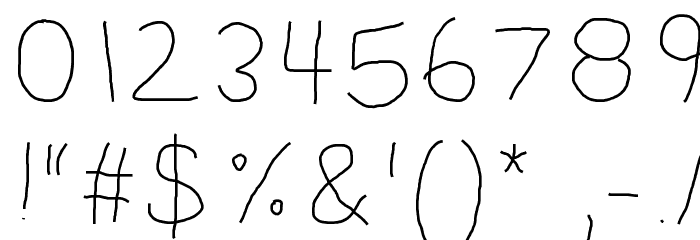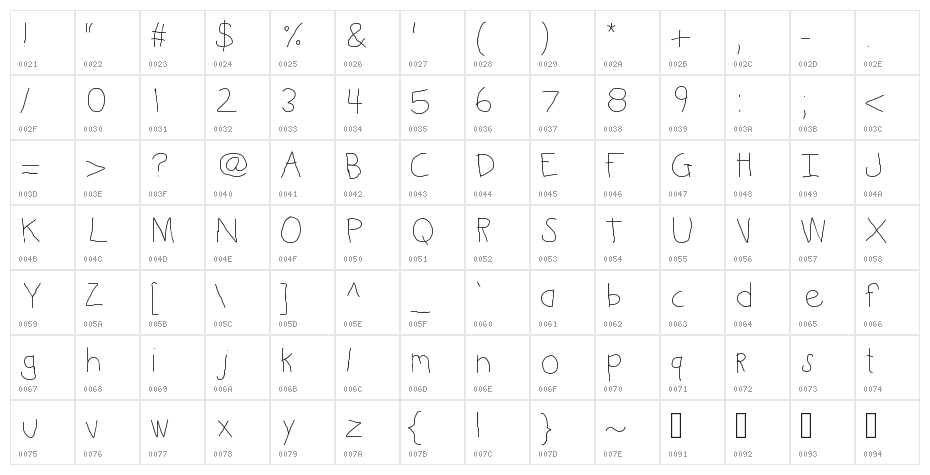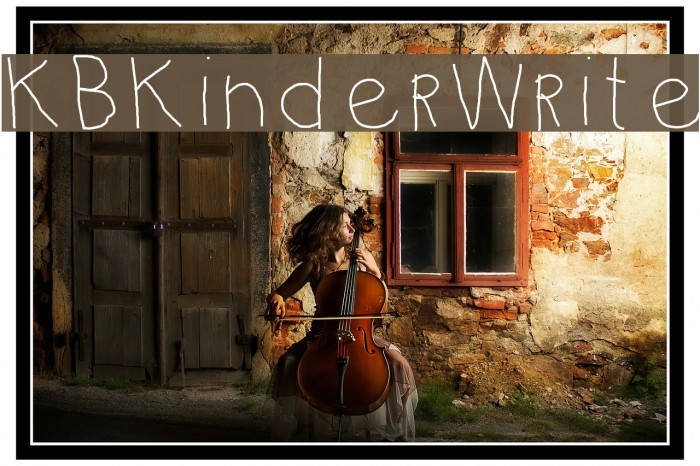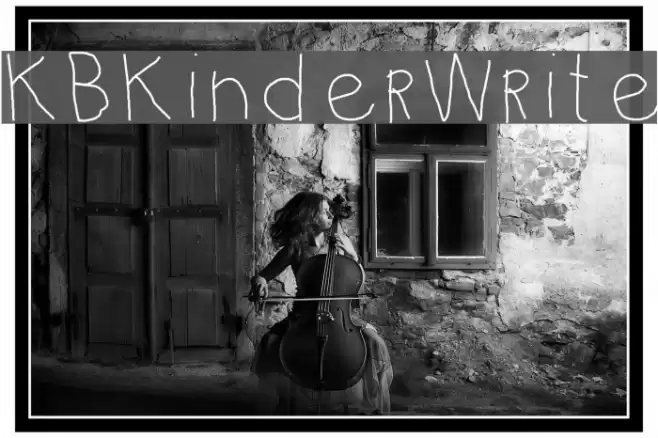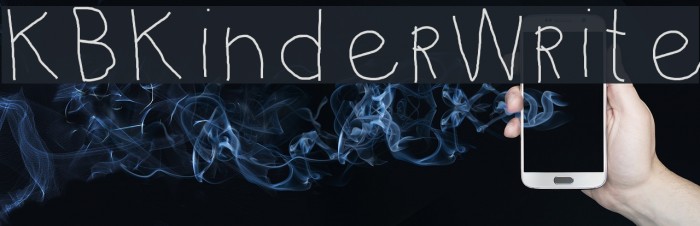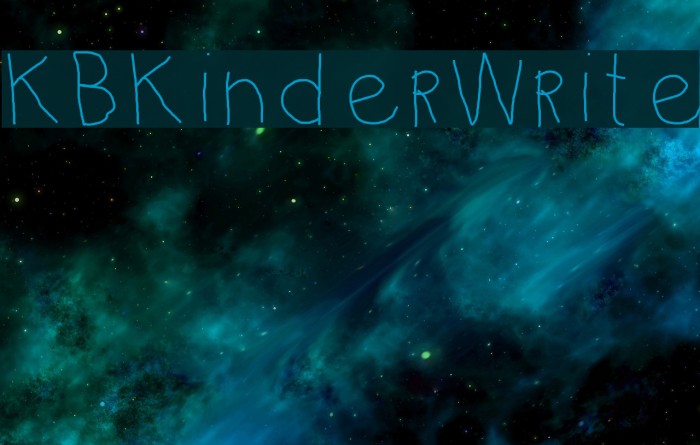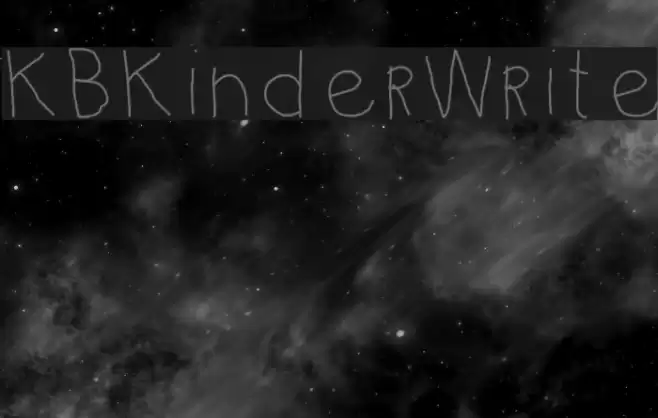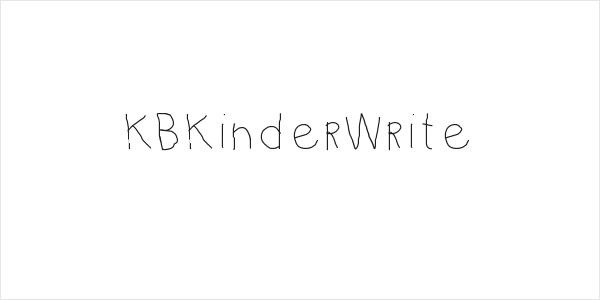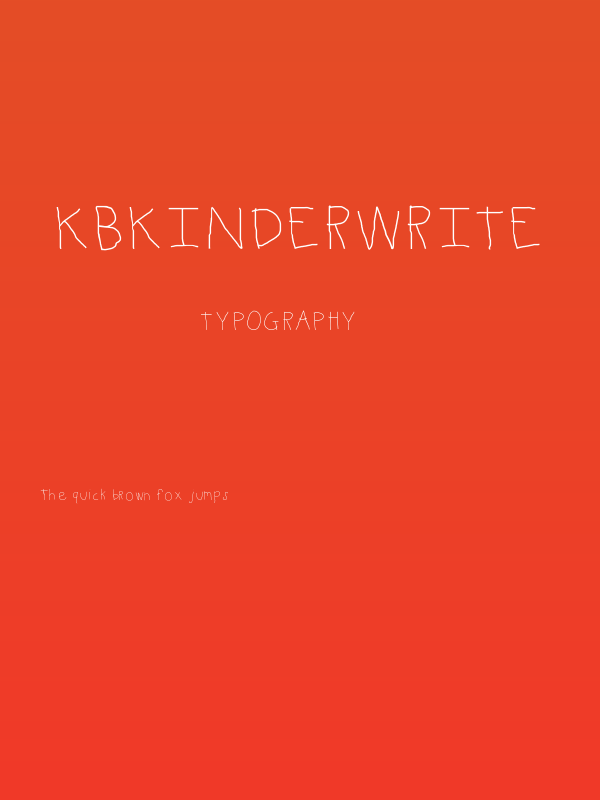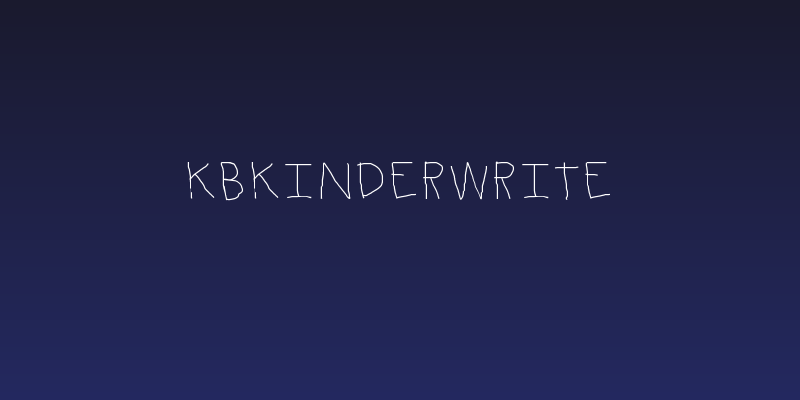
KBKinderWrite Font
KBKinderWrite Description
This playful and whimsical font captures the essence of a child's handwriting, featuring irregular strokes and a casual, informal style. The characters are unevenly shaped, with varying heights and widths, giving it a charming, hand-drawn appearance. The uppercase and lowercase letters maintain a consistent style, with a slight tilt and playful curves. Numbers and special characters are similarly styled, adding to the cohesive, childlike aesthetic. This font is perfect for projects that require a touch of innocence and creativity, such as children's books, educational materials, or playful branding. Its unique style makes it stand out, while still being legible and approachable.
| Use Case | Headlines, Creative projects, Children's materials |
| Proposed Projects | Ideal for children's books, educational materials, playful branding, and creative projects. |